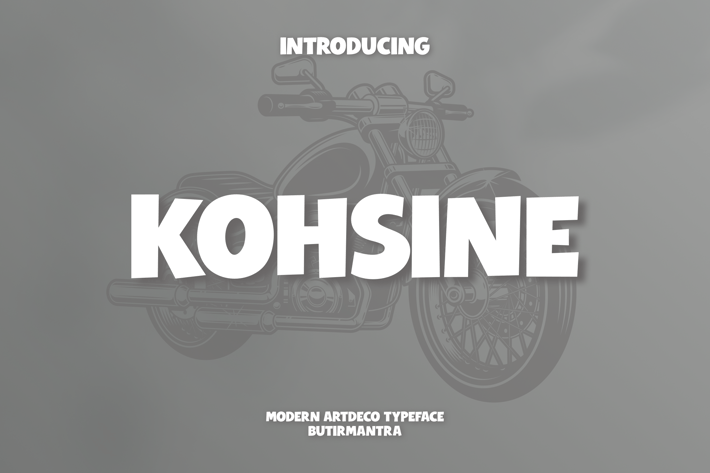
Kohsine - Modern Display Font
Kohsine is a new and fresh font, with a childish style making it look very funky. This font is inspired by old styles then brought back with a modern all-caps touch, this would be great for logos, branding, posters, titles, comics, music and other designs. Don't wait, grab it now for a design that stands out.